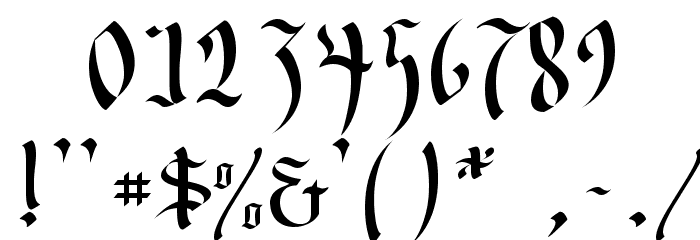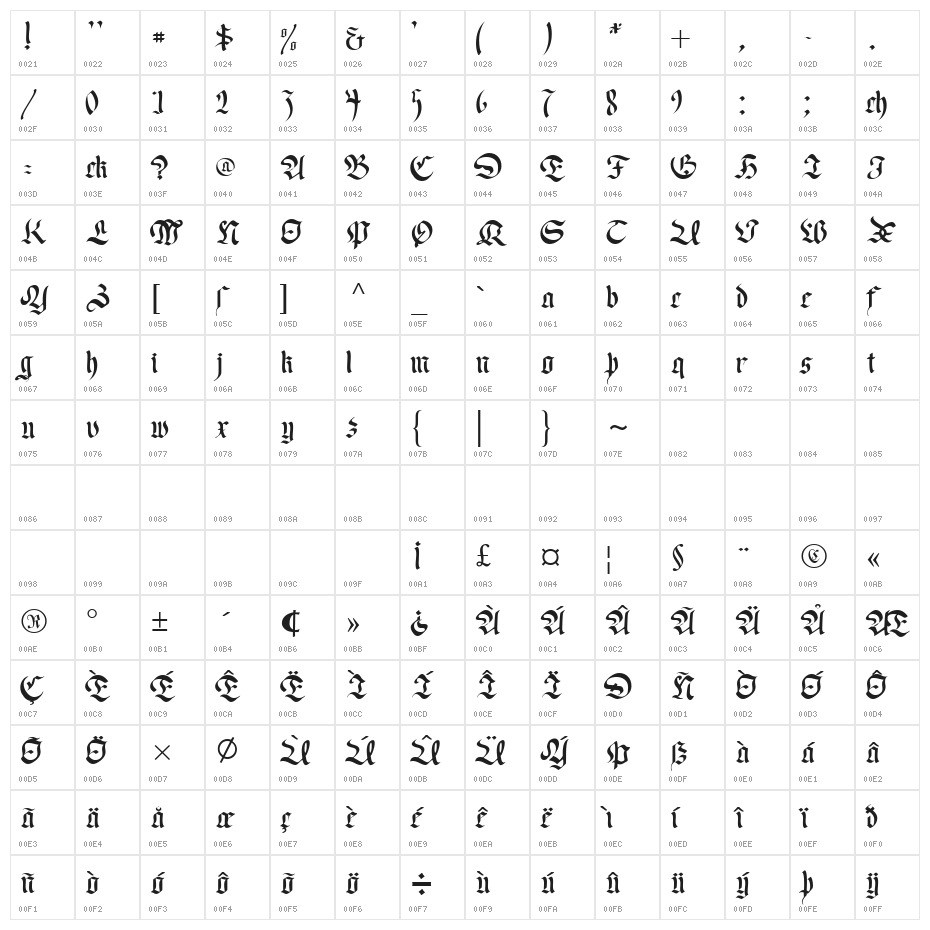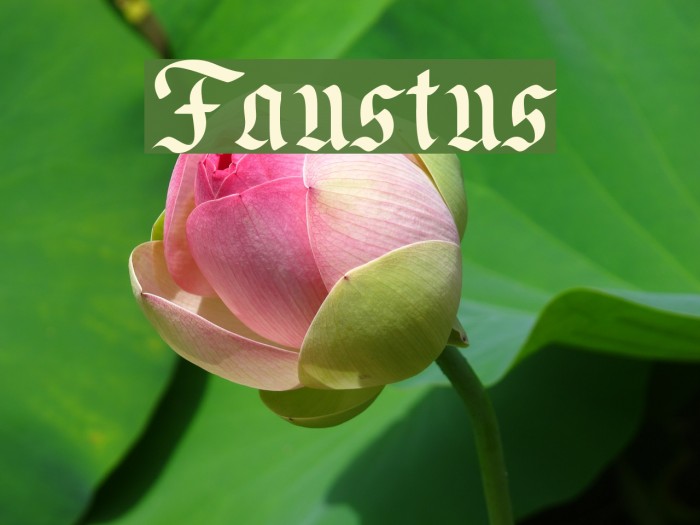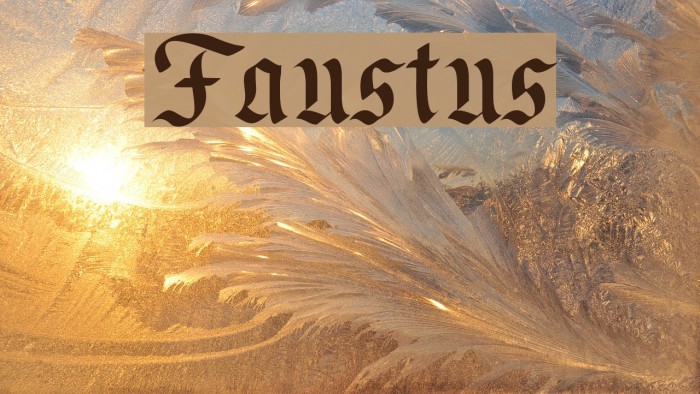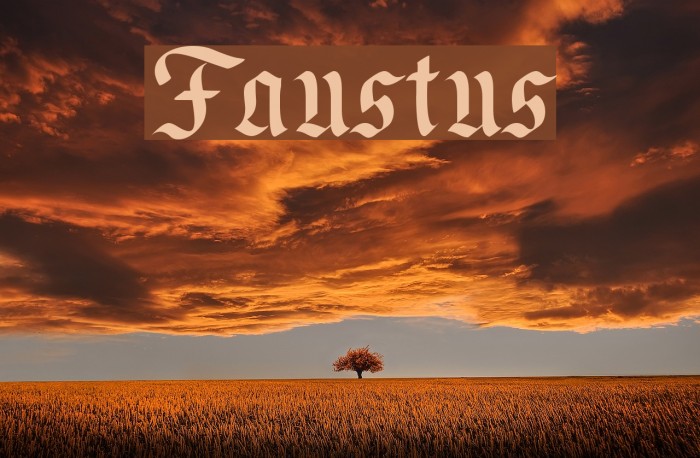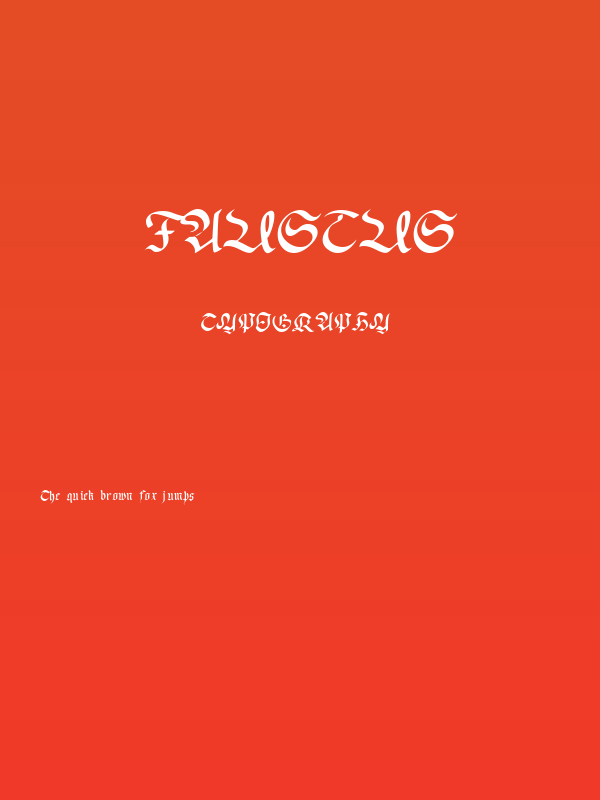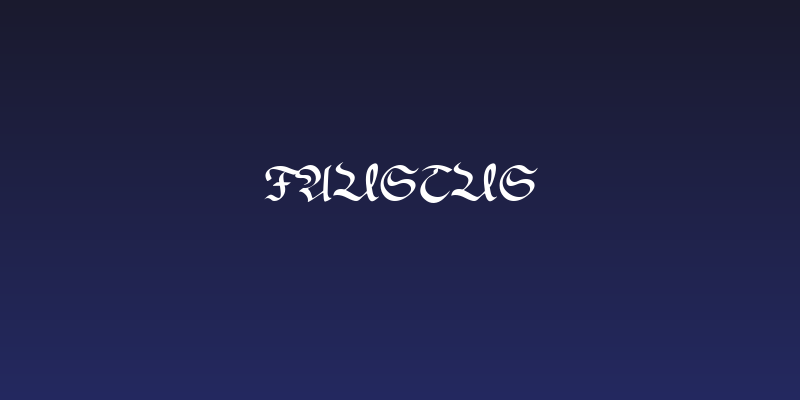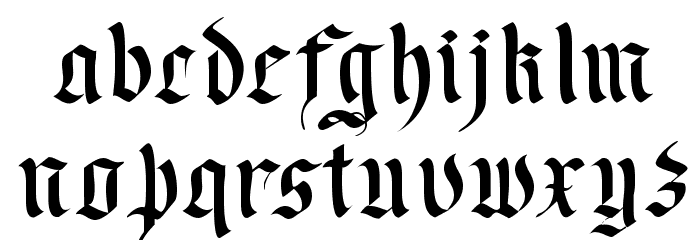
Faustus Font
Faustus Description
This font exhibits a classic blackletter style, characterized by its intricate and ornate letterforms. The uppercase letters are bold and dramatic, with sharp angles and elaborate flourishes that give them a medieval, gothic appearance. The lowercase letters maintain the same decorative quality, with a consistent stroke weight that enhances readability while preserving the font's historical aesthetic. The numerals are equally stylized, featuring the same angular and bold design. Special characters are designed to match the overall theme, ensuring a cohesive look across all text elements.
| Proposed Projects | Ideal for projects requiring a historical or medieval theme, such as book covers, posters, or themed event invitations. |